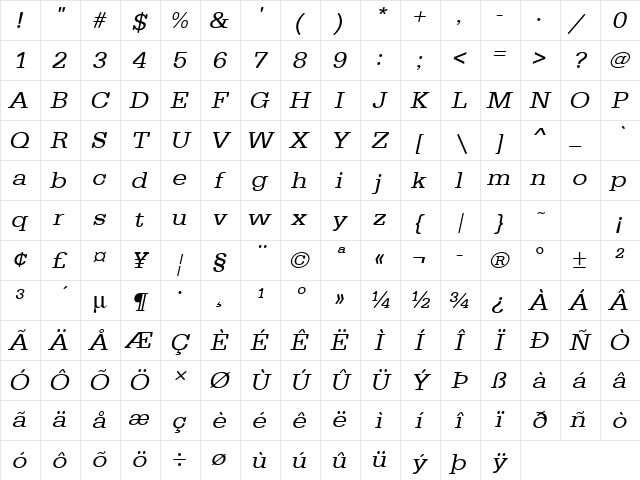
URWTypewriterTExtWid Oblique
Complete URWTypewriterTExtWid Oblique glyph index. Displaying only characters natively supported by URWTypewriterTExtWid Oblique font.
Design Context for URWTypewriterTExtWid
URWTypewriterTExtWid uses fixed-width spacing throughout, giving it the structured, systematic character associated with coding environments and technical documentation. The slanted form adds forward momentum and visual energy.
Pro Tip: Use URWTypewriterTExtWid with slightly increased line-height for extended reading - fixed-width spacing can feel dense in longer passages without extra breathing room.